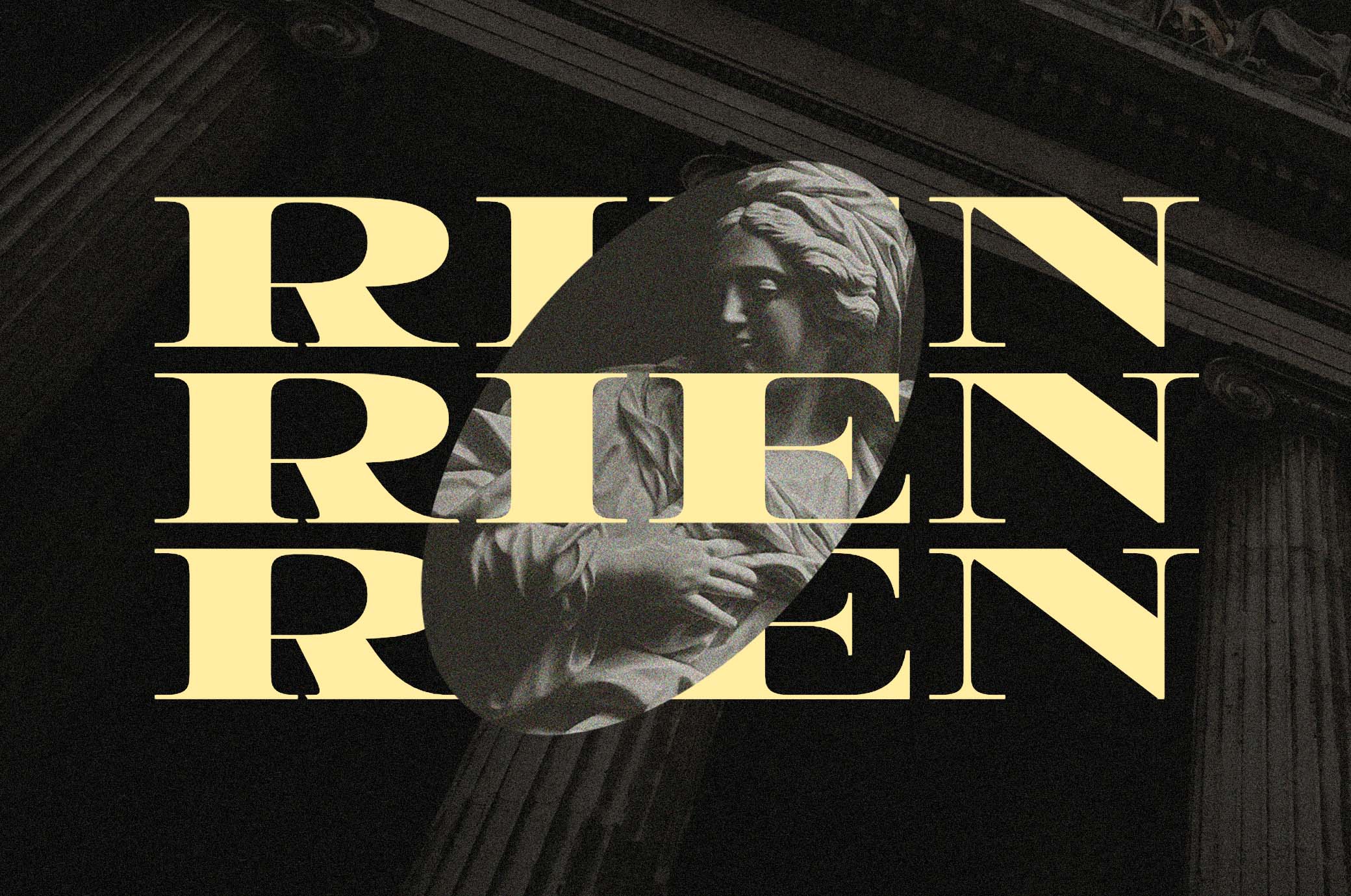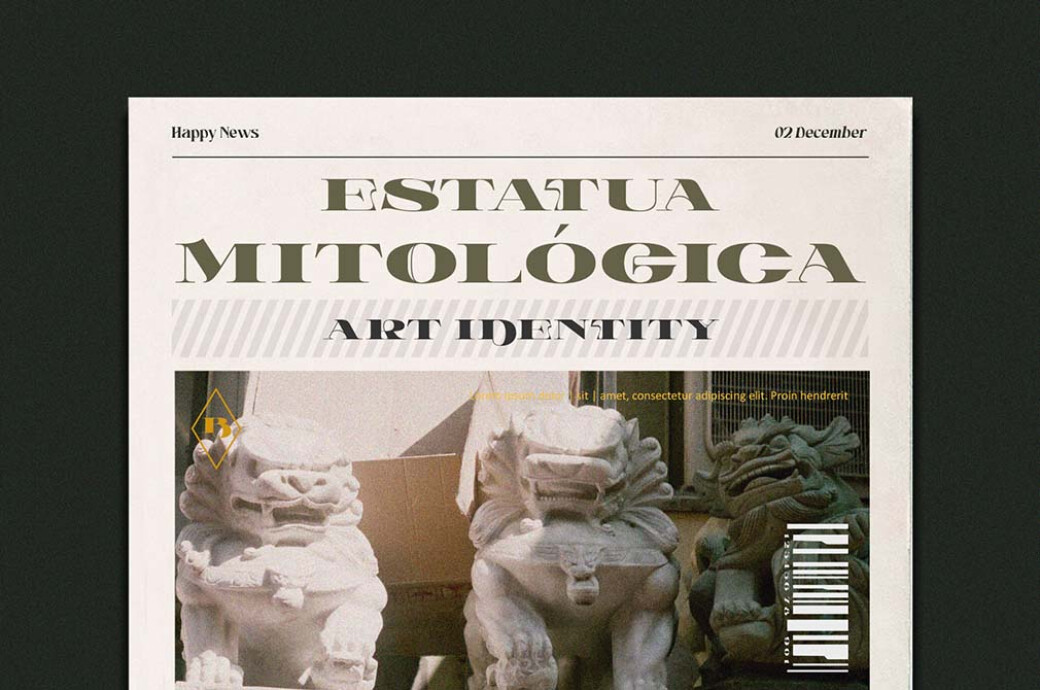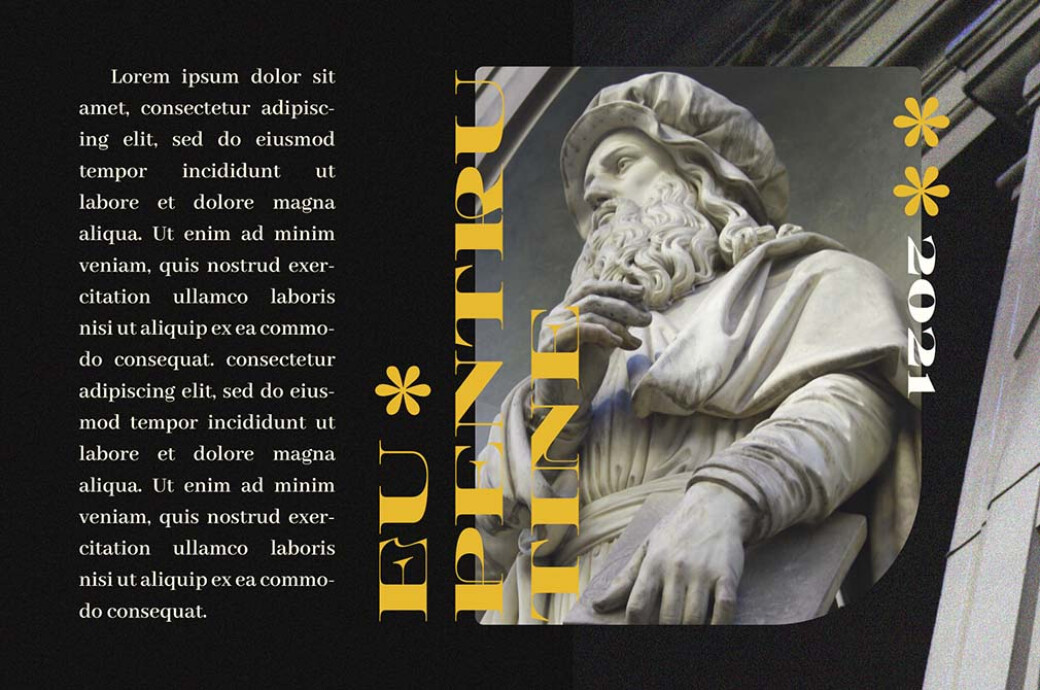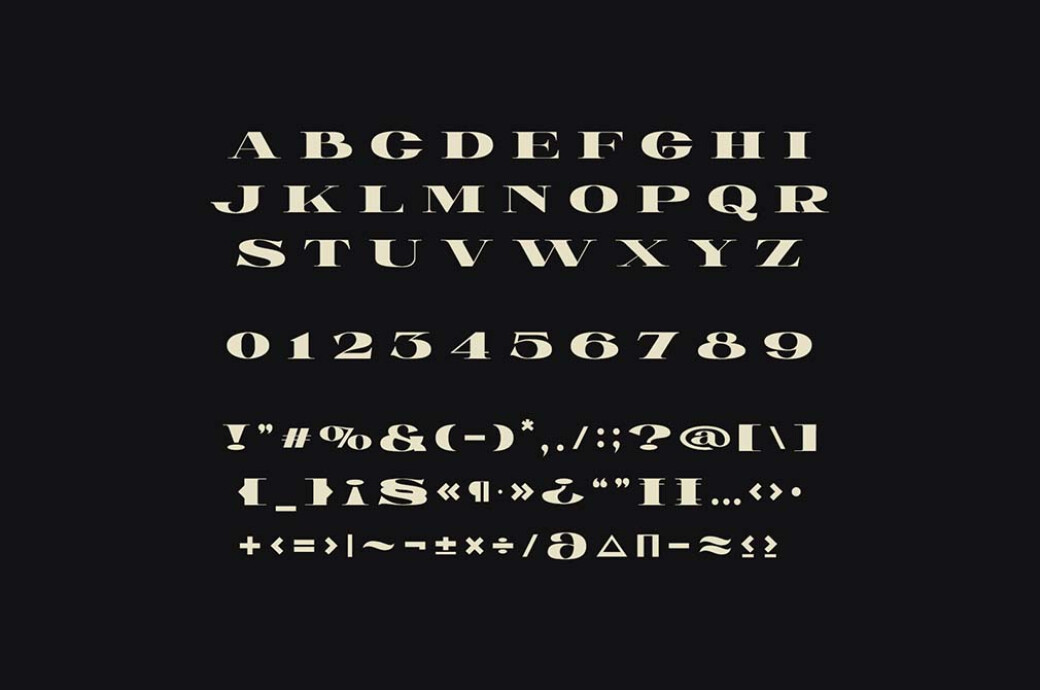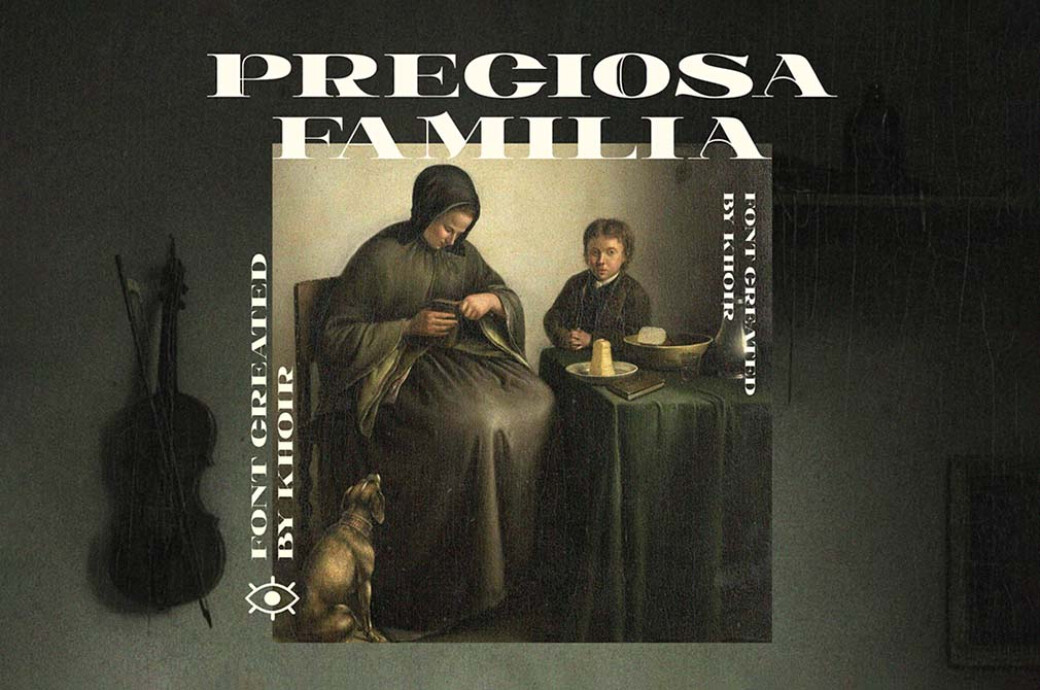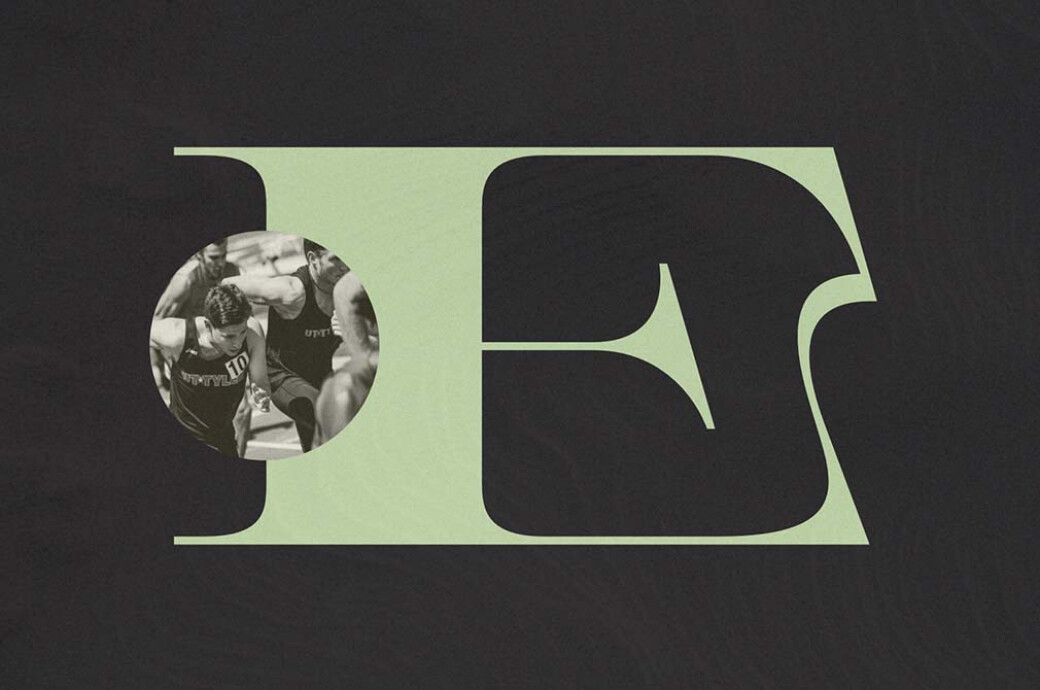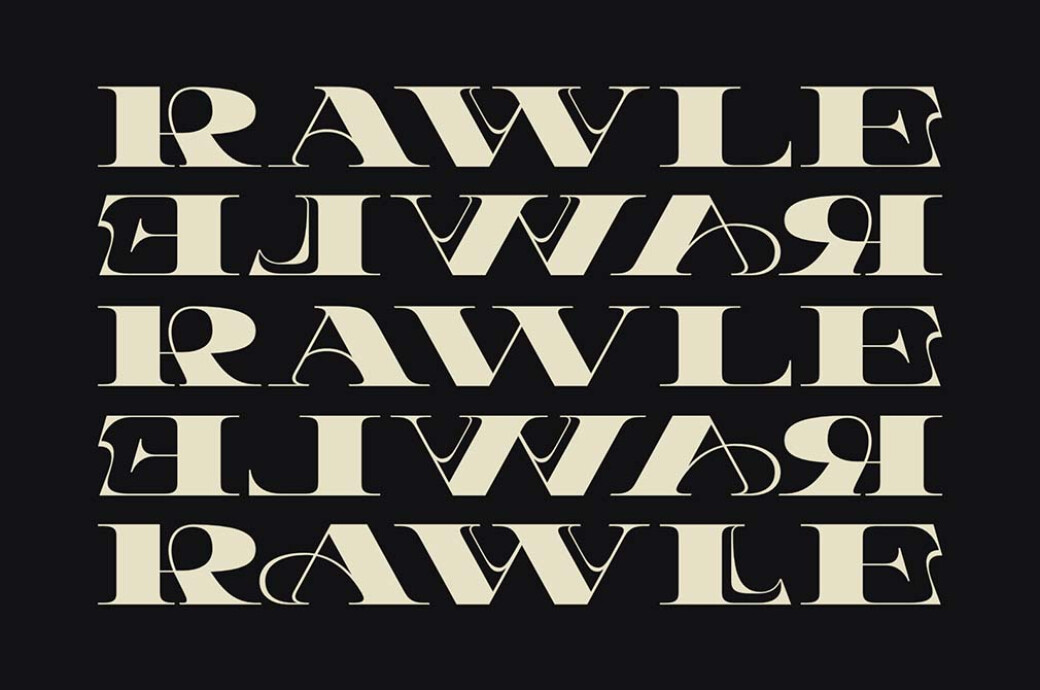
RIEN Elegant Serif Font
Explore the infinite elegance of sweeping letters and sharp serifs with RIEN. This font will crown your collection and become a distinct, catchy addition to any design.RIEN is a modern font created with incredible attention to trends and love for classical forms. It's just like a perfect combination of Renaissance art and experimental typography, and this uniqueness is one of its major features. This all-caps font comes with punctuation marks, numerals and multilingual support (Latin languages). Any project this typeface will be brought to is meant to grab and feast the eye: magazines, posters, prints, web design, and branding will get a powerful visual twist with REIN.